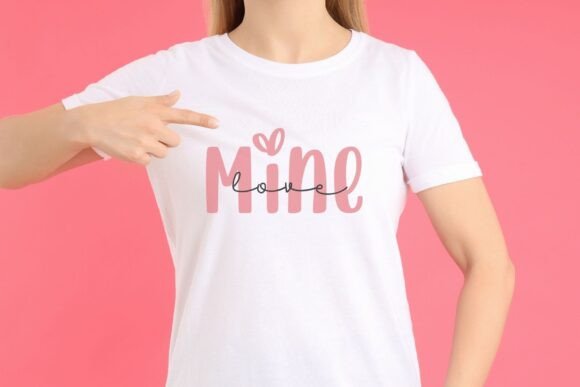
Introduction to Lineheart Font
Do you remember the thrill of creating a handmade card for your loved one on Valentine’s Day? The hours spent cutting, pasting, and perfecting every detail, all to make that special someone feel loved and cherished? As designers, we’re always on the lookout for the perfect font to add that extra touch of sweetness to our projects. Enter the Lineheart Font, a charming and playful handwritten font that’s about to become your new best friend.
With its rounded, bold letterforms and whimsical heart motifs, the Lineheart Font is perfect for love-themed designs, invitations, greeting cards, and more. Its friendly and approachable style brings joy and warmth to every word, making it ideal for creative and romantic projects. Whether you’re a seasoned designer or just starting out, the Lineheart Font is a valuable addition to your design resource arsenal, offering a high-quality, free download that’s perfect for any project.
Key Features of Lineheart Font
- Unique, hand-drawn design with a mix of modern and vintage elements, perfect for creative projects
- Includes a wide range of characters, including uppercase and lowercase letters, numbers, and punctuation marks
- Perfect for use in creative projects, such as logos, branding, and typography-based designs, where a high-quality, unique font is essential
Honest Review: Lineheart Font
I recently had the chance to dive into the Lineheart Font, and I must say it’s a fantastic addition to any designer’s toolkit. With its clean and modern aesthetic, this font is perfect for any creative project that requires a touch of sophistication.
- ✨ High-quality design: The Lineheart Font is crisp and well-designed, making it perfect for print or digital applications.
- ✨ Versatile: The font comes in a range of weights and styles, giving you the flexibility to customize it to suit your design needs.
While the Lineheart Font is an excellent design resource, there are a few limitations to be aware of:
- ⚠️ Limited language support: The font may not support all languages, which could be a limitation for designers working on international projects.
- ⚠️ Not ideal for very small text: Due to its modern design, the font may not be the best choice for very small text, where legibility is crucial.
Overall, I’m thoroughly impressed with the Lineheart Font. It’s a high-quality design resource that’s perfect for creative projects. With its free download and transparent background, it’s an excellent addition to any designer’s toolkit. While it has some limitations, it’s well worth considering for your next design project.
Tips for Getting the Most Out of Lineheart Font
To get the most out of the Lineheart Font, use it sparingly and in combination with other design elements. The font is particularly effective in headings and titles, where its elegant script can add a touch of sophistication to your design.
The Lineheart Font is commonly used in creative projects such as wedding invitations, business cards, and branding materials. Its high-quality design and transparent background make it an ideal choice for any project where a touch of elegance is desired.